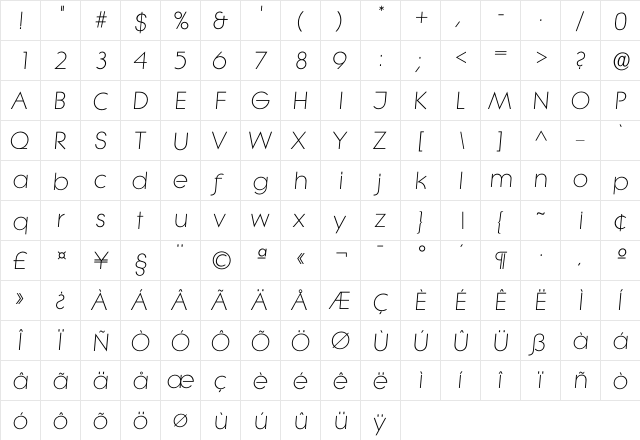
Ilitera Light
Design Context for Ilitera Typeface
Ilitera is a composed and adaptable typeface that performs quietly and consistently across a wide range of design contexts. The delicate stroke weight brings airiness and refinement to layouts.